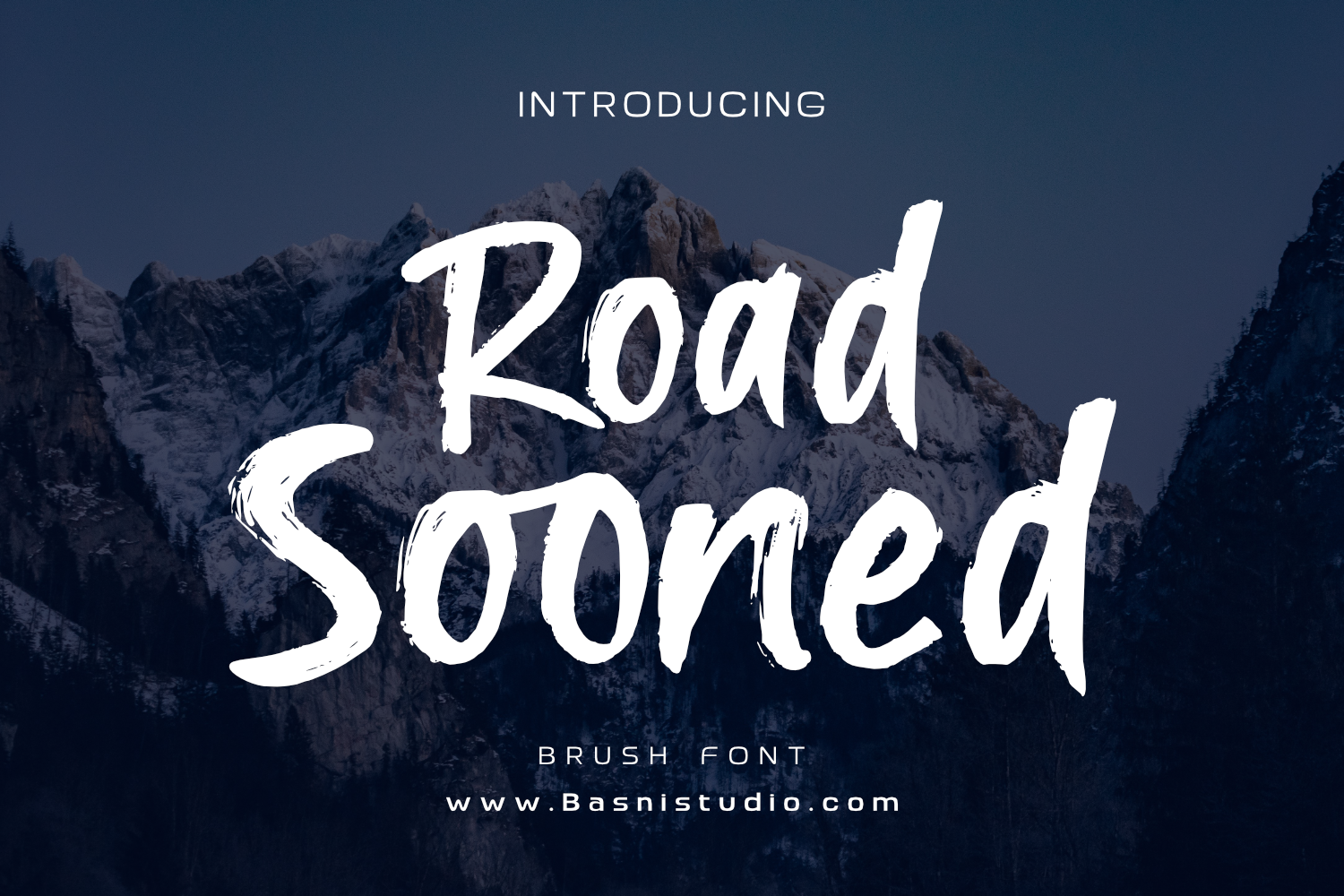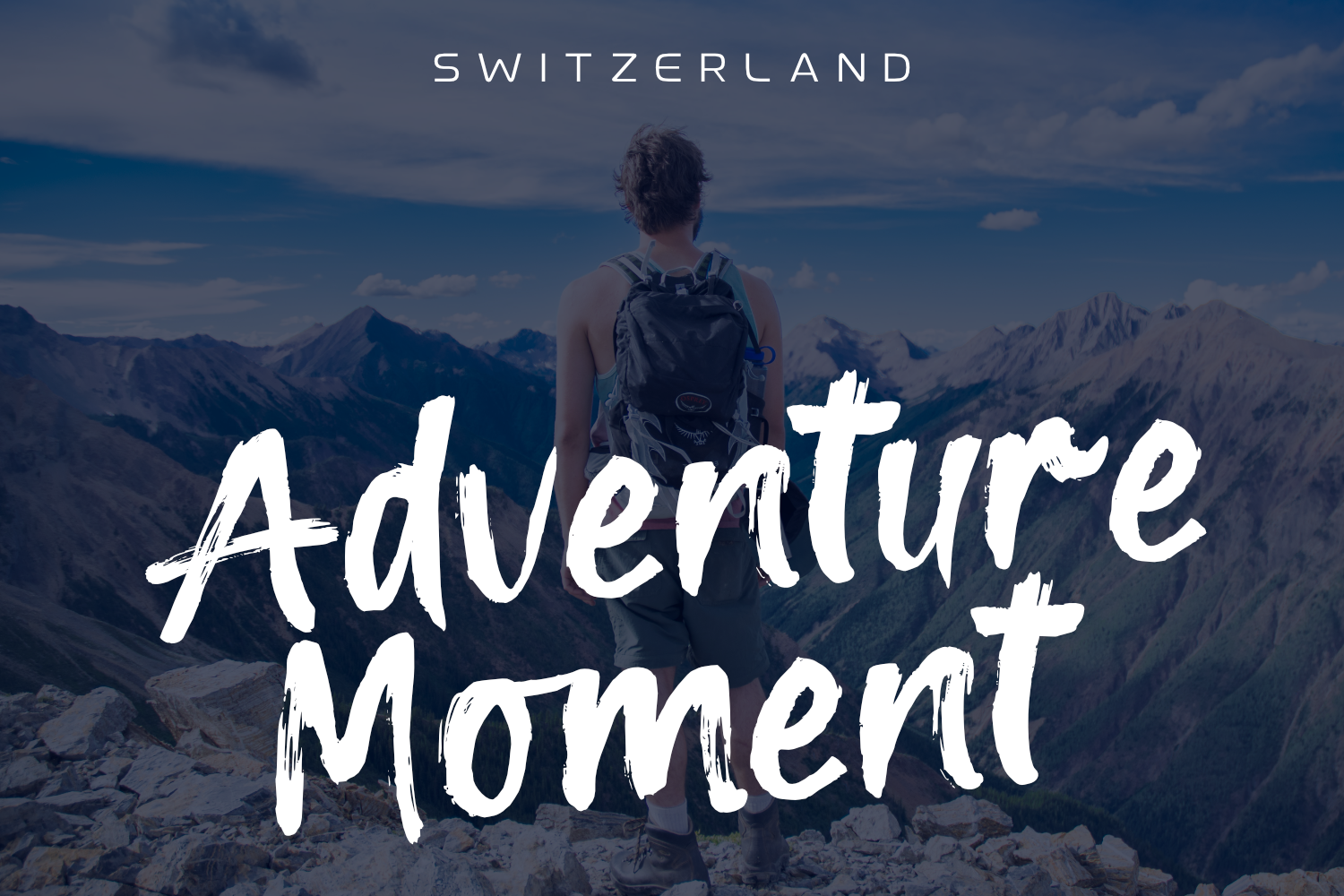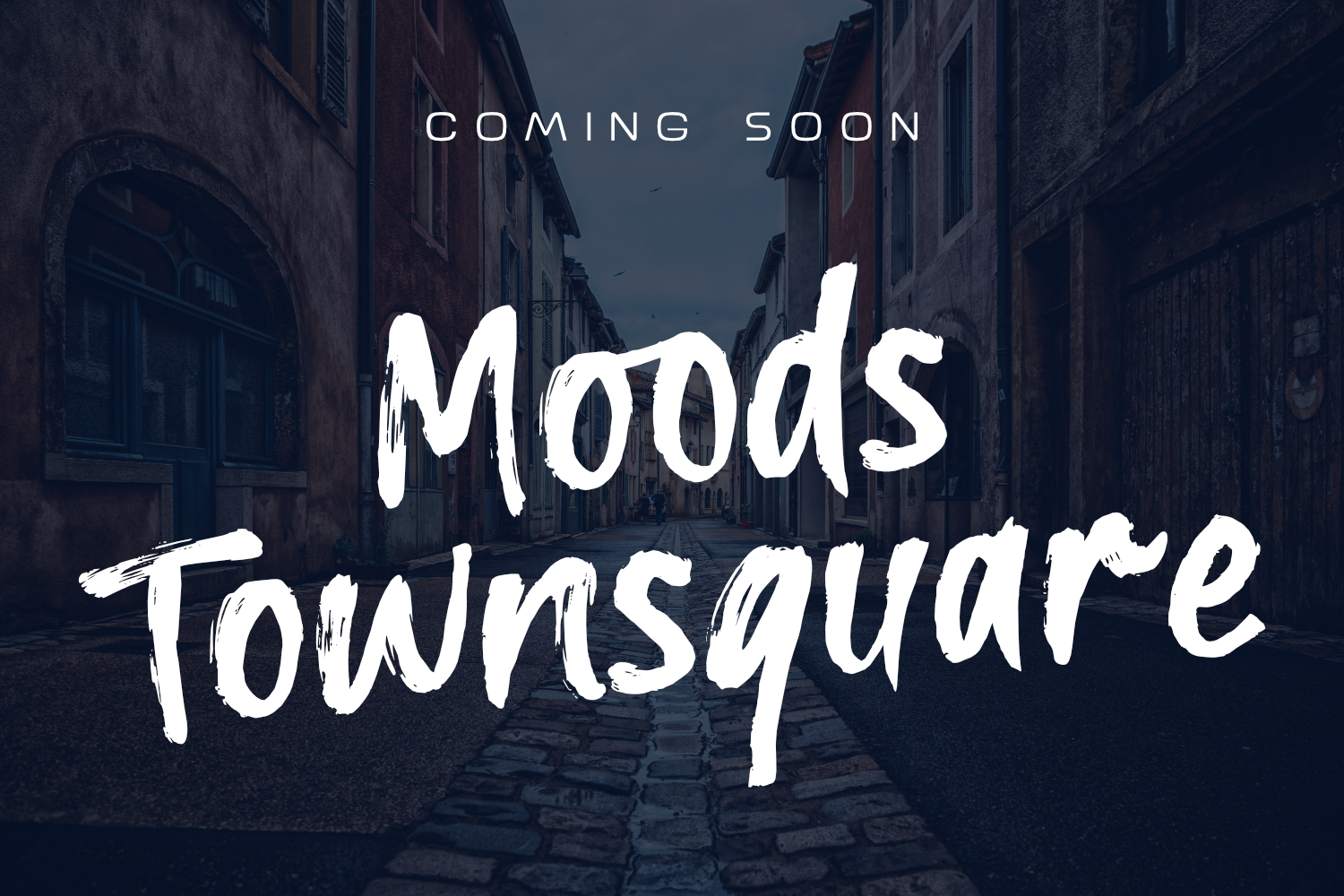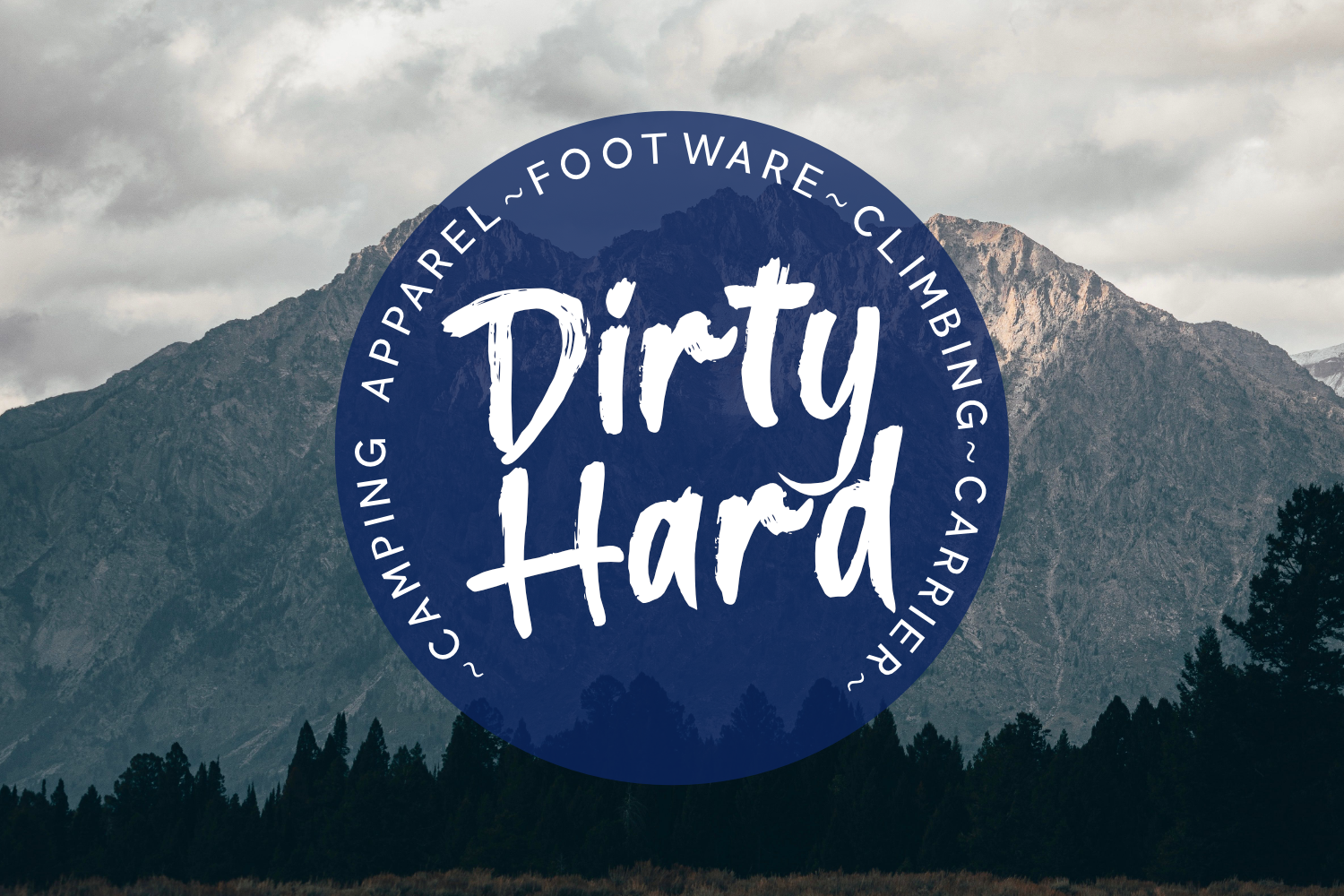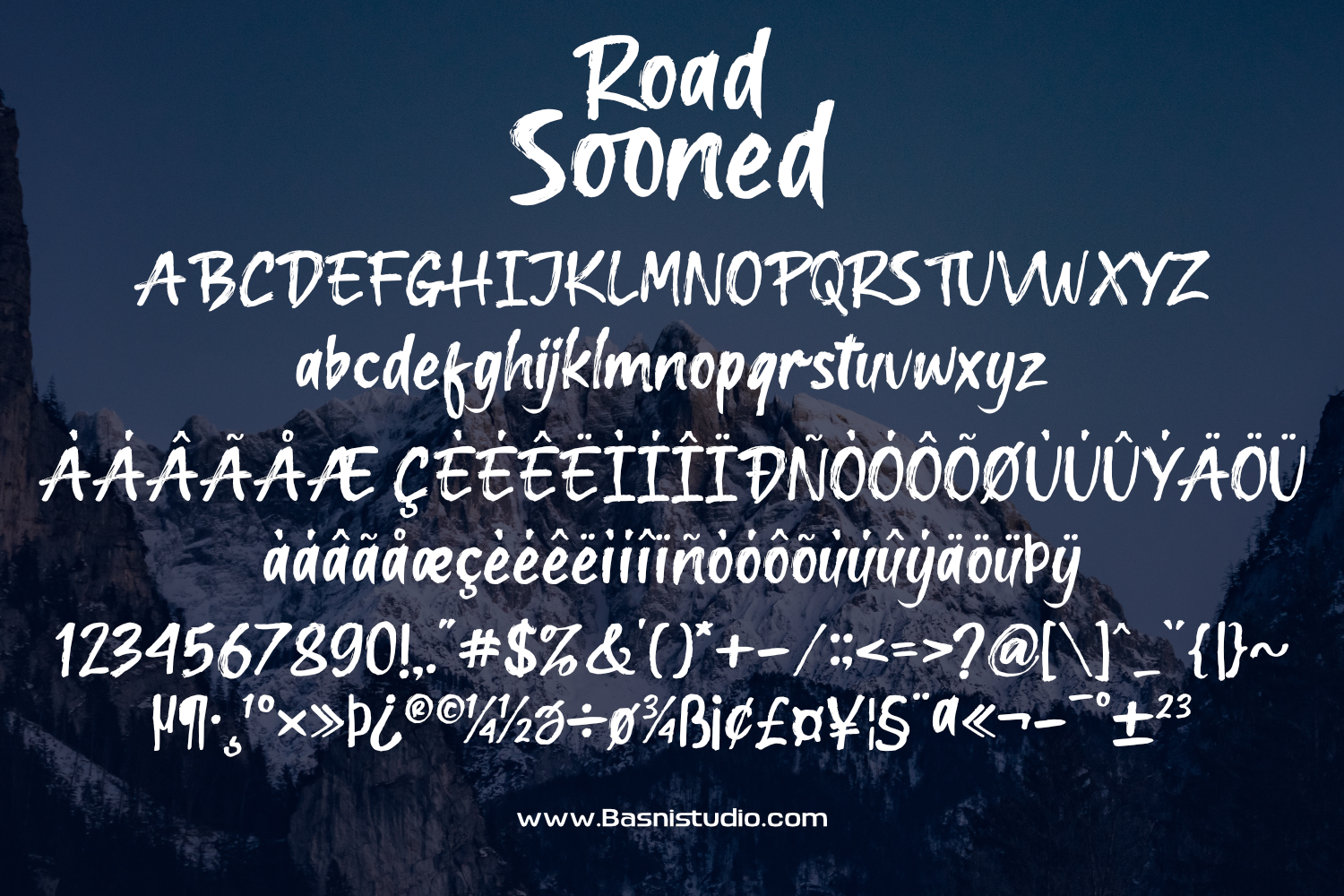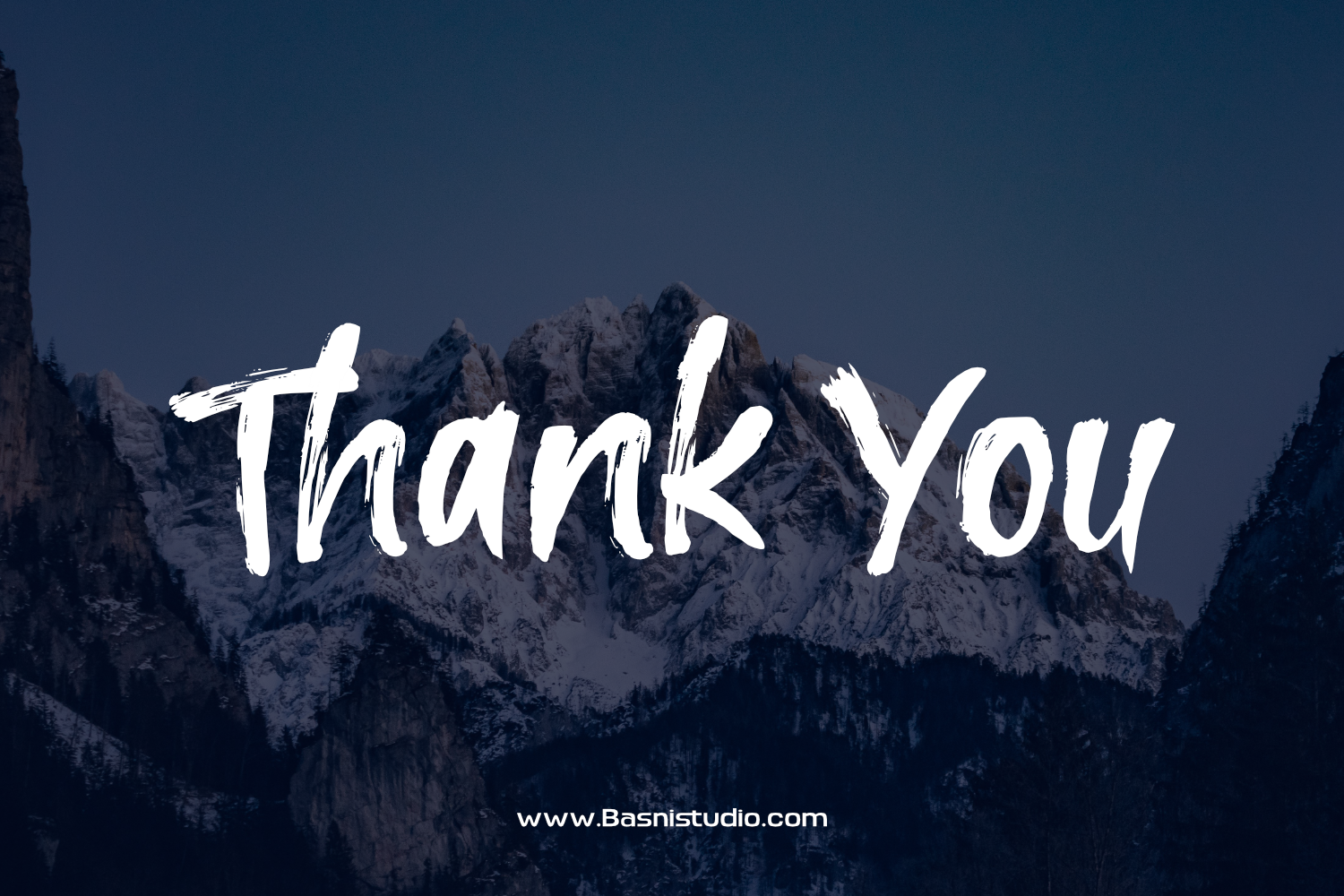
Road Sooned Font is a Brush handwritten typeface inspired by real brush strokes. It brings a fun, energetic, and expressive feel to your designs, making them stand out with a casual yet confident personality.
Perfect for projects that need strong impact and easy readability while keeping a handmade touch.